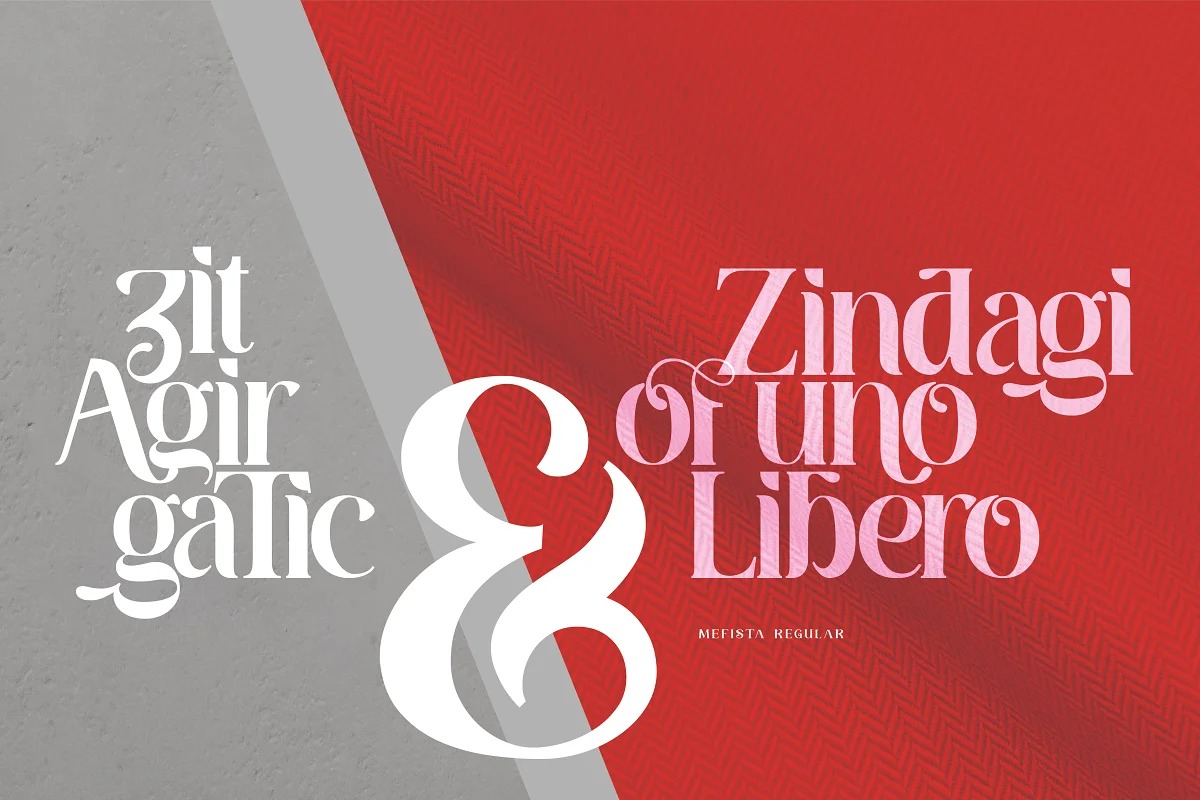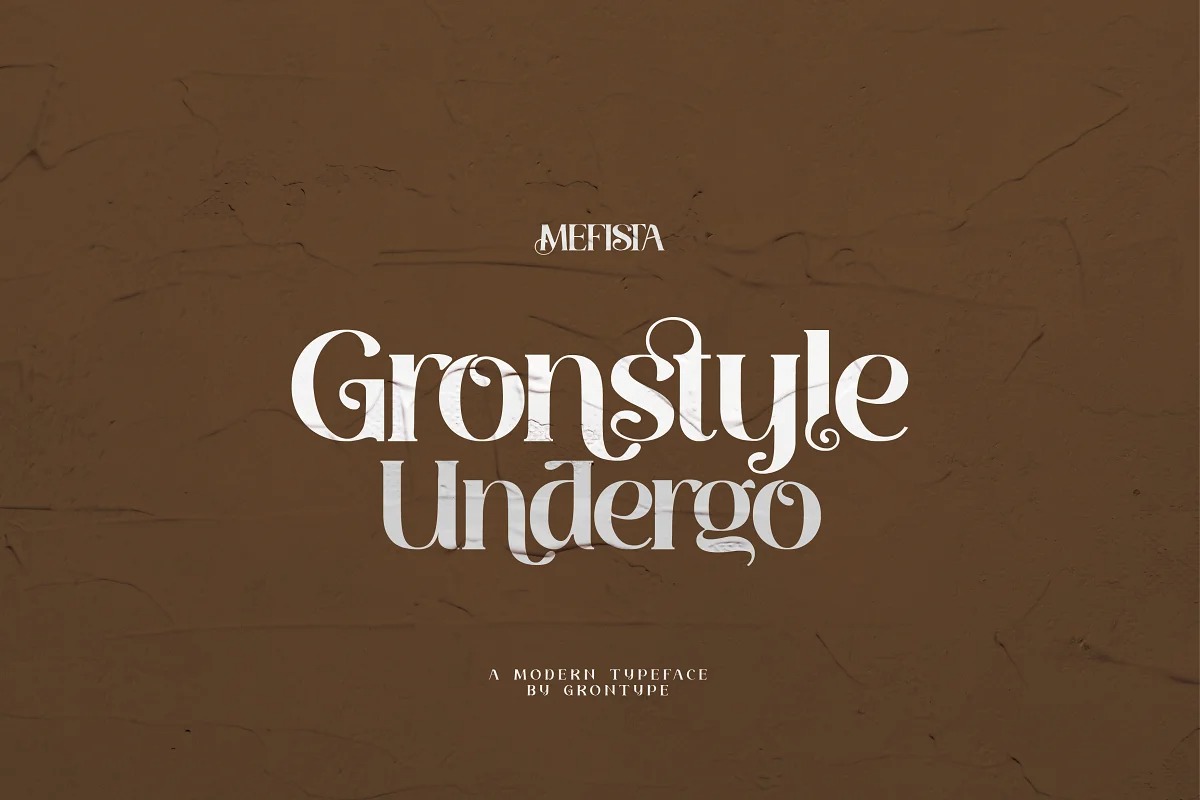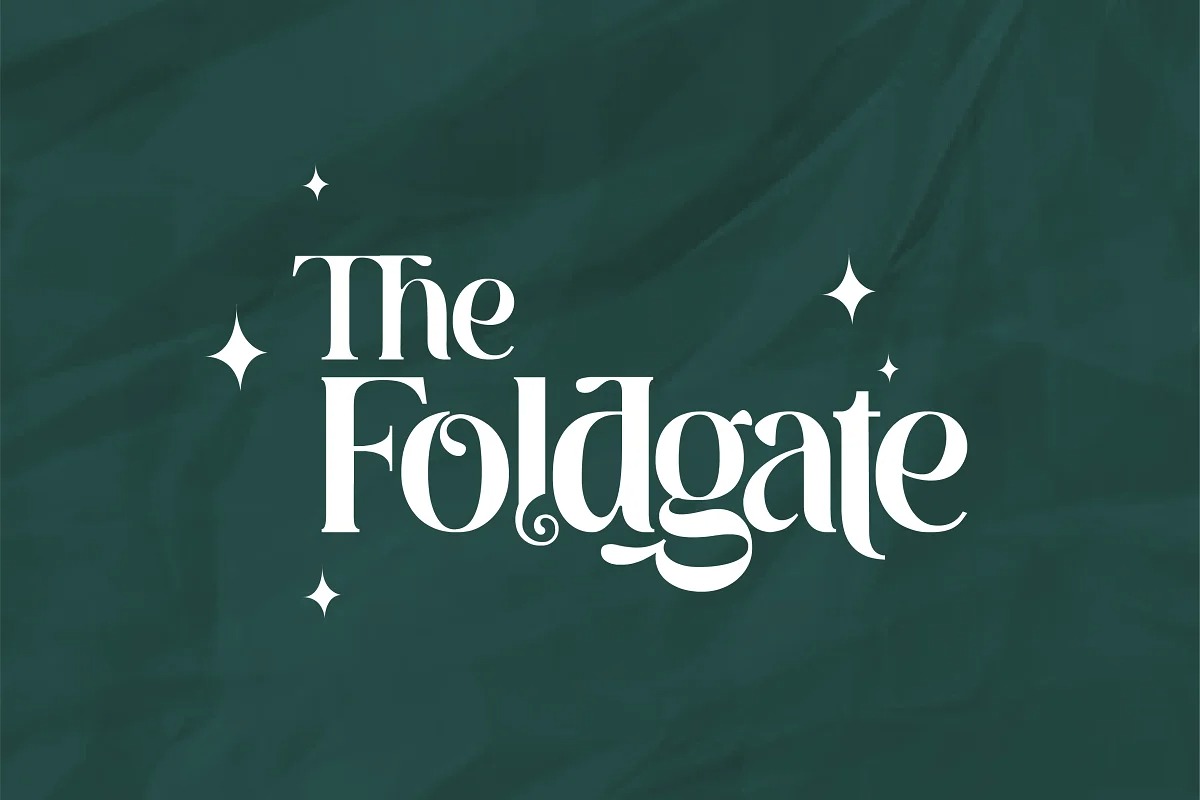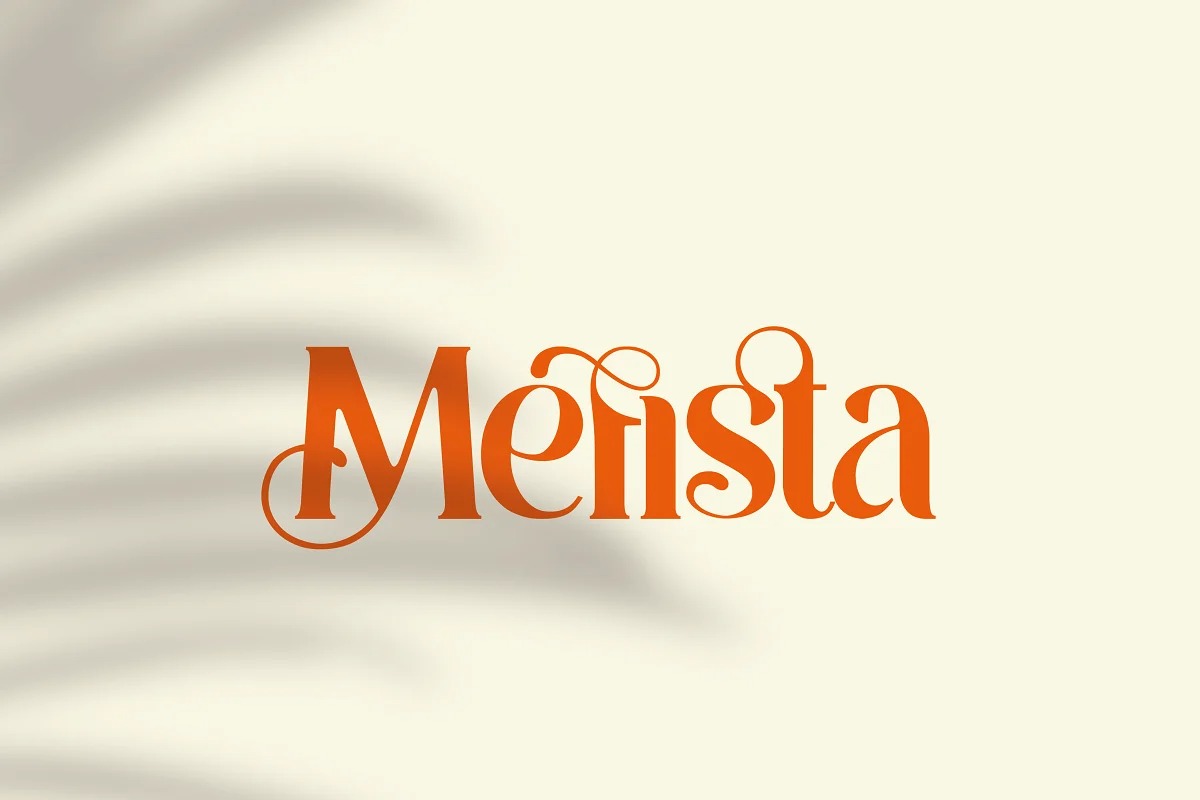
Mefista Font
Mefista Serif Font
If you’re looking for a beautiful serif typeface to attract your audiences or customers then we’ve got the font for you! The Mefista font is a masterpiece crafted from a rigorous and lengthy process. This font was written with care so as to produce a unique and diverse work by adding alternatives and some ligatures. This font can be used for print designs such as writing on invitation cards, magazine covers, greeting cards and so on. and can be used for company or logo taglines.